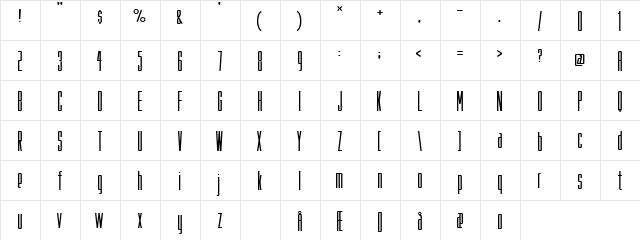
Fake Plastic Regular
Design Context for Fake Plastic Typeface
Fake Plastic is a composed and adaptable typeface that performs quietly and consistently across a wide range of design contexts.